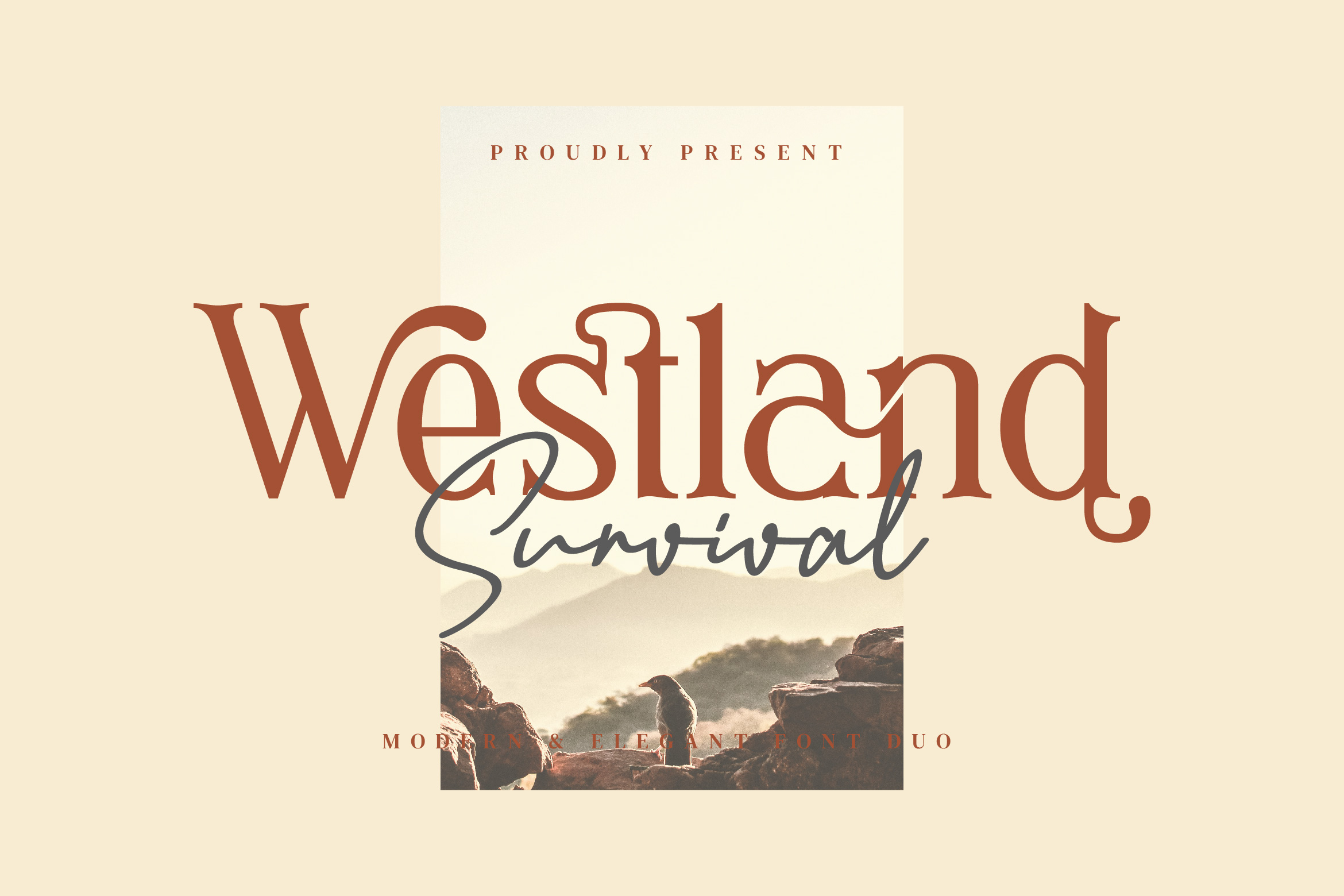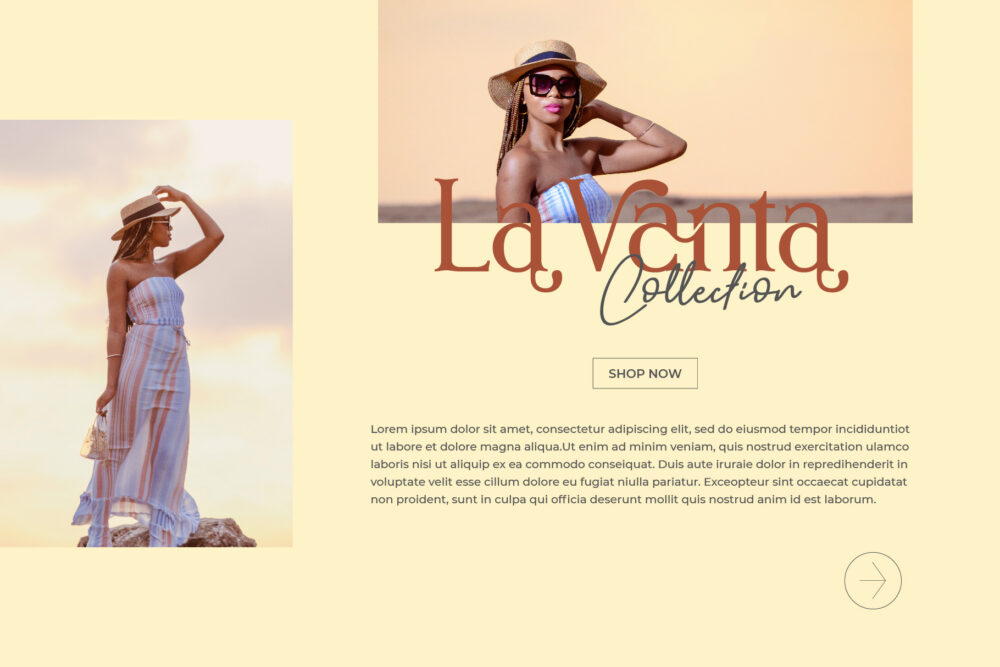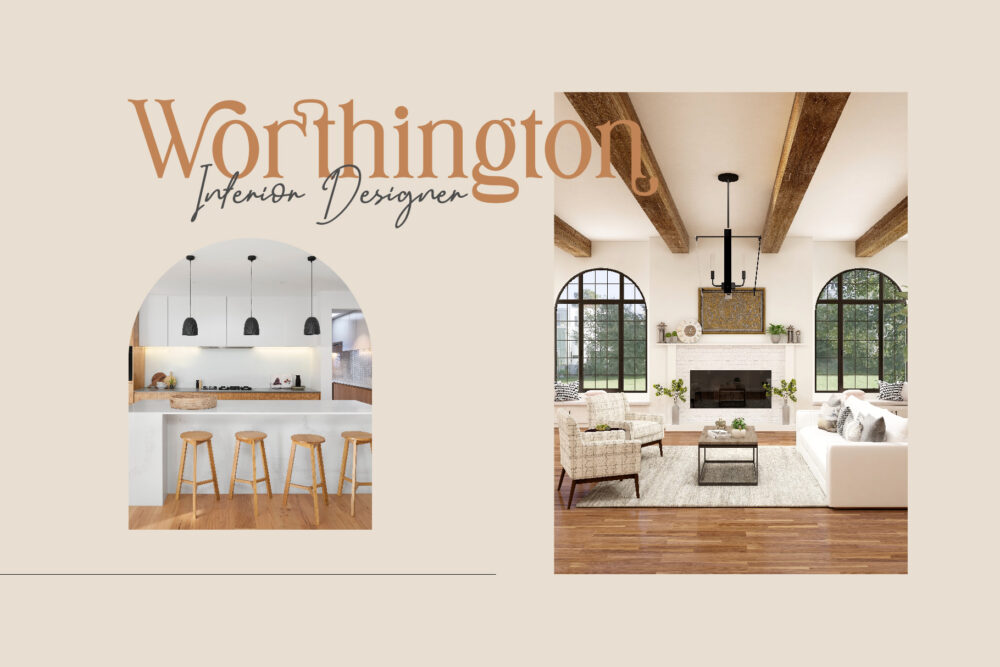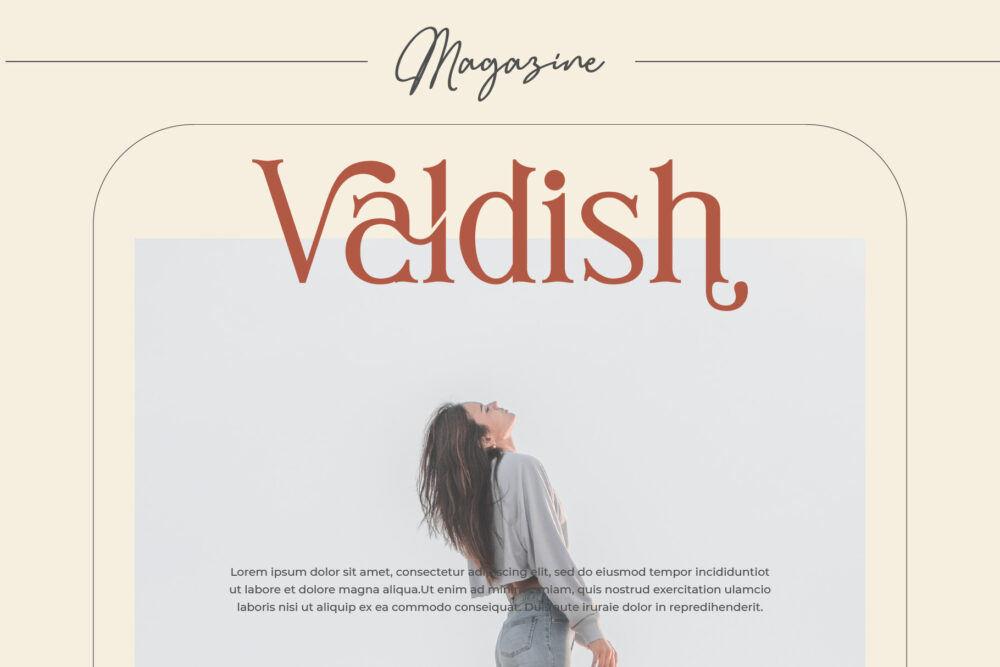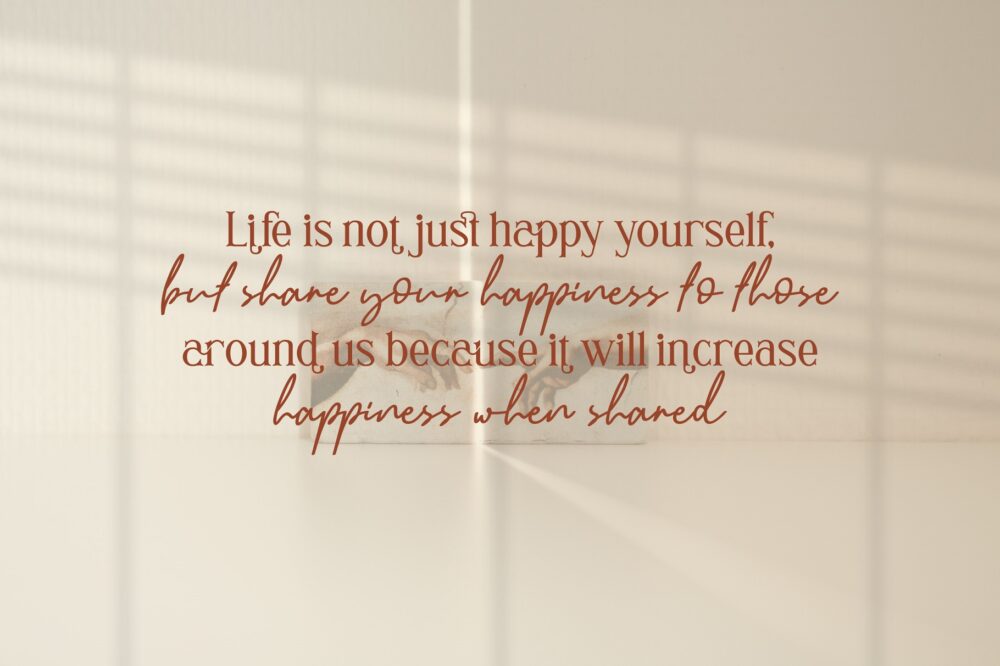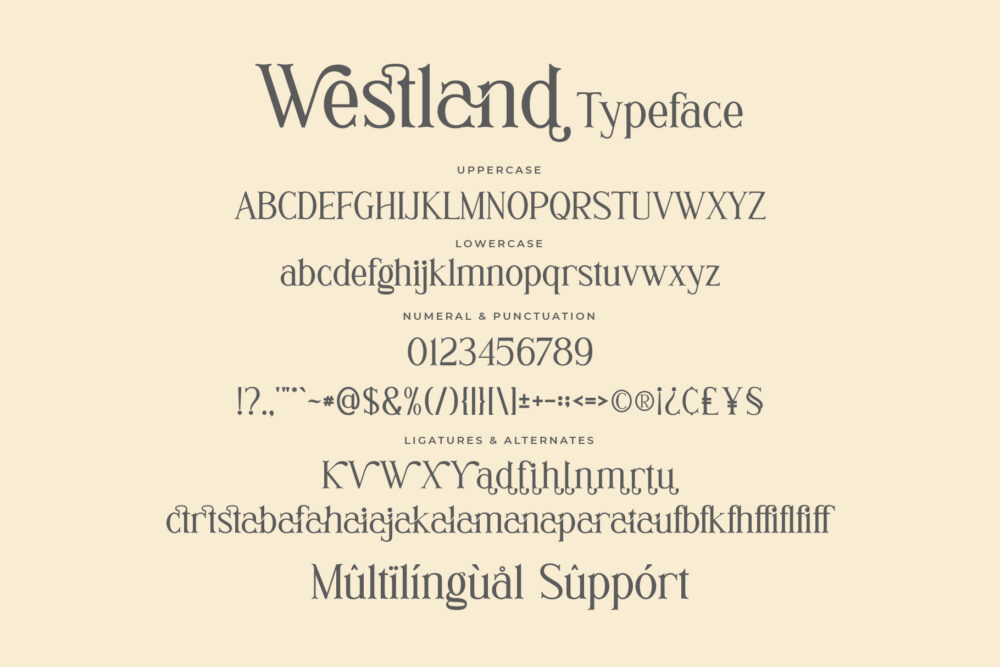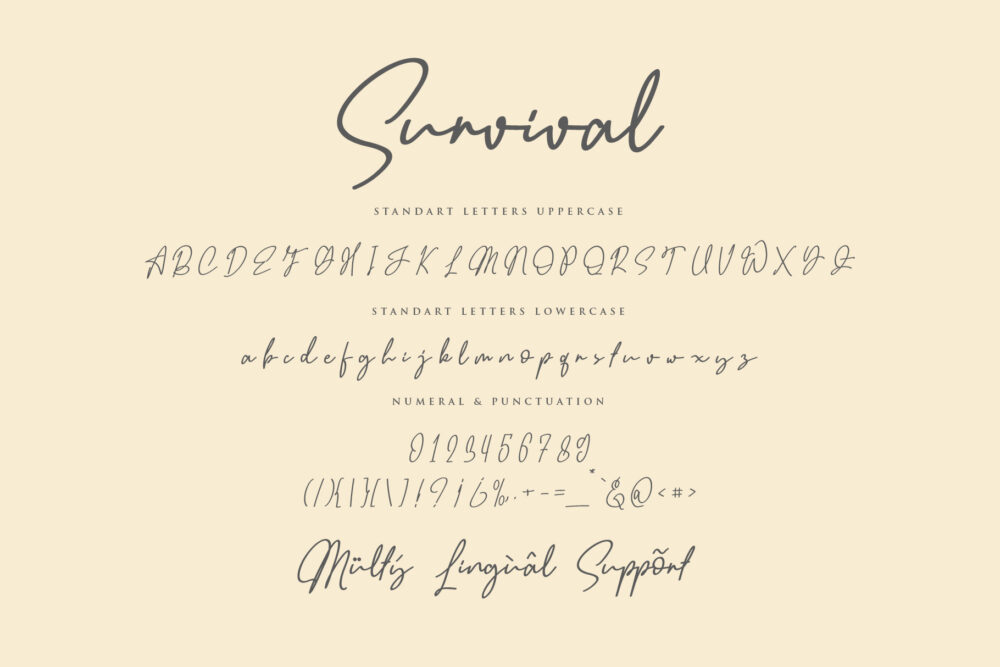
Westland Survival
Westland & Survival Signature – Stylish Duo Ligature Typeface Display Serif inspired by the famous minimalist logo perfect for the purposes of designing templates, brochures, videos, advertising branding, logos and more.
Ligatures